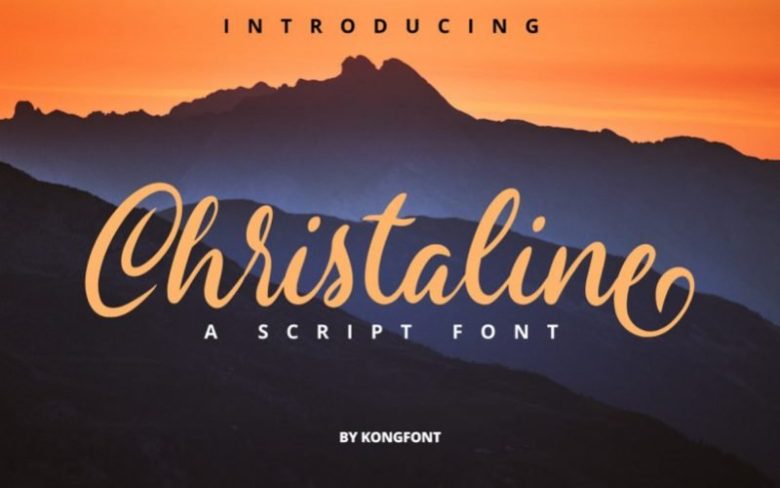
Christaline Script Font Free
Introducing our New Font, very suitable as to make adorable invitation for wedding, birthday, special day. A collection of letters and numbers suitable your projects also great for Logotype, Branding Design, Logo Design, Digital Lettering Arts, T-Shirt/Apparel, Poster, Magazine, Signs, Advertising Design, and also perfect for your other projects branding.